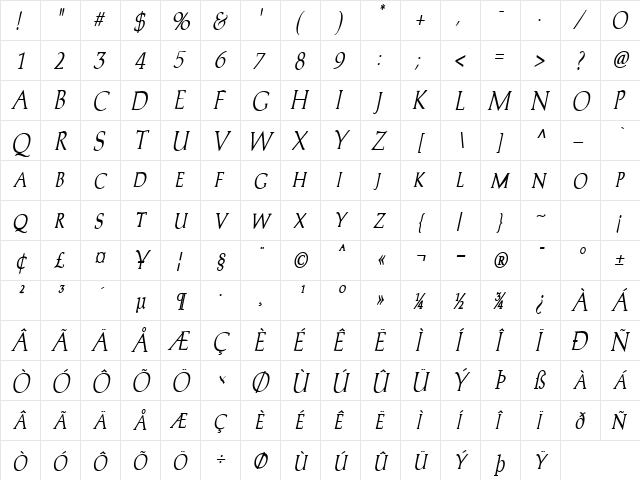
Trajan'sCapsCondensed Bold Italic
Design Context for Trajan'sCapsCondensed Typeface
Trajan'sCapsCondensed offers clean, dependable letterforms without strong stylistic allegiance, making it a practical choice for designers who need flexibility. Its italic angle brings a sense of urgency and motion to the letterforms. The heavy weight commands attention and anchors typographic hierarchies. Its narrow stance lets it pack a punch even in space-constrained designs.
Pro Tip: Try Trajan'sCapsCondensed for annotation and caption copy alongside an upright companion — the contrast in angle creates a dynamic but ordered typographic system.